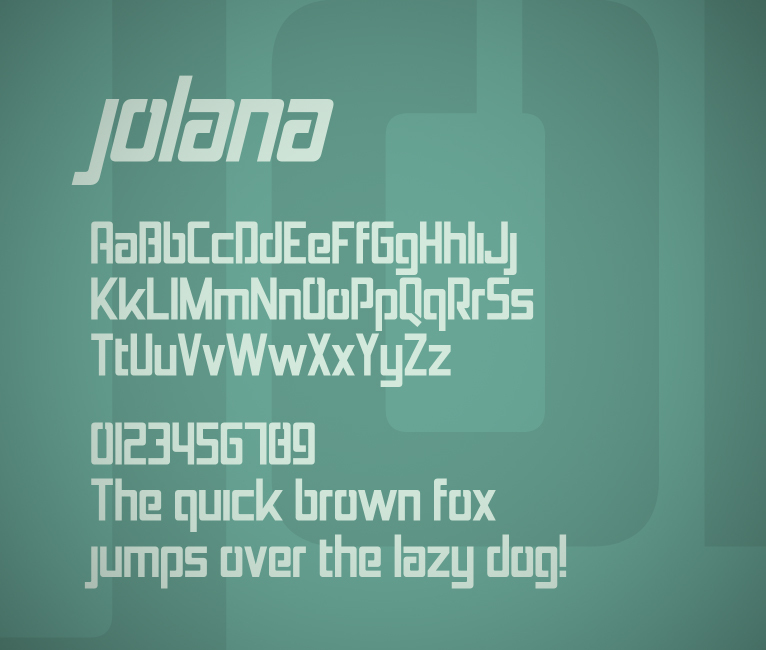
Jolana Italic by Zdenek Gromnica is a free modern display font with a condensed, forward-leaning profile. Broad black strokes meet narrow joins and deep angular cuts, giving the letters a fast, engineered look. The silhouette is unmistakably assertive.
Its speed suits motorsport posters and electronic music graphics, yet the clean contours also fit fashion packaging. Slanted forms make event titles feel in motion, and their close-fitting shapes can turn merchandise lettering into a graphic band. For performance brands, the font can become a recognizable wordmark rather than ordinary product copy.
The font is a sans serif stencil typeface available in regular and italic styles.